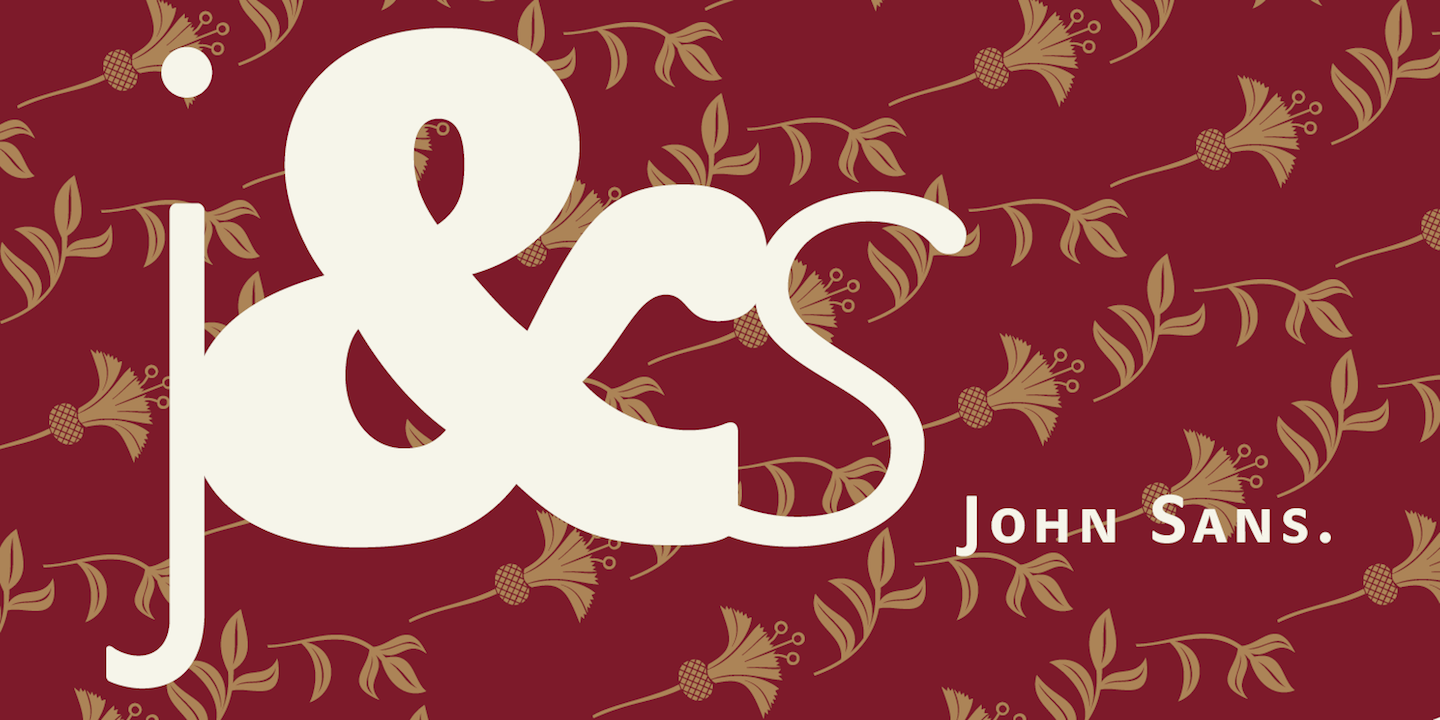
John Sans Font is ideal for reliable business communications, straightforward corporate branding, honest service marketing, dependable product packaging, trustworthy professional signage, practical business documentation, genuine customer communications, everyday business materials, reliable service advertising, and authentic business presentations.
What makes John Sans Font exciting is its honest reliability that perfectly captures the straightforward dependability and genuine trustworthiness found in solid business practices and authentic professional relationships. This typeface features clean letterforms with dependable proportions and honest details that convey the straightforward competence and reliable service that customers can count on. The font's trustworthy personality and genuine authenticity make it ideal for businesses seeking to project reliability, honesty, and the dependable service that comes from straightforward business values and authentic customer care.
John Sans Font family includes reliable weight variations and trustworthy alternatives that enhance its honest appeal while providing design flexibility for business and professional applications. The font features dependable ligatures, straightforward ornaments, and reliable character variations that create authentic business atmosphere for trustworthy and professional branding.
Service businesses and reliable companies consistently choose John Sans Font Free Download for projects requiring authentic dependability appeal and trustworthy credibility. The font's honest character excels in applications targeting customers who appreciate genuine reliability and straightforward business practices. Whether you're designing for service companies, professional firms, or dependable product brands, this trustworthy typeface delivers the business authenticity and reliable character that resonates with audiences seeking genuine dependability and the honest service that defines trustworthy business relationships and authentic professional excellence.